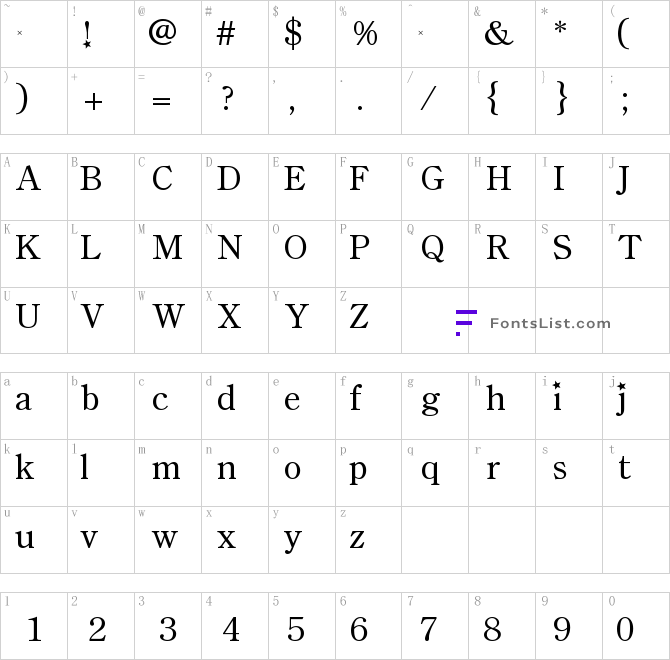
- Font Name:InnerStar
AGInnerStar.ttf is a very beautiful artistic font, AGInnerStar.ttf is widely used in the design and printing of various books and pictures,AGInnerStar.ttf has a strong visual impact,AGInnerStar.ttf is a commonly used font in newspapers, magazines and books, and is used in posters, e-commerce Poster design, store design, logo design, font design and other fields.AGInnerStar.